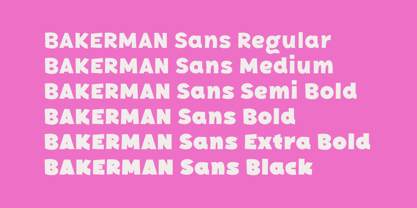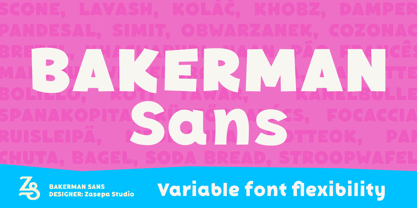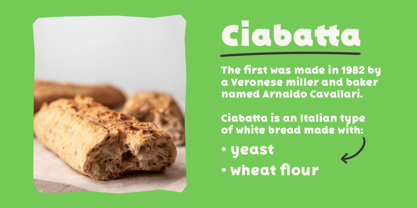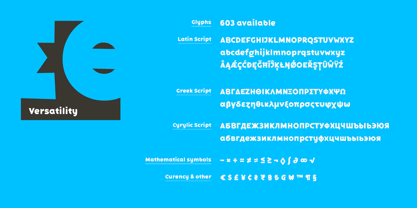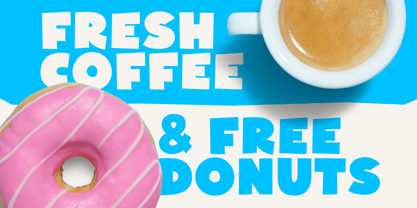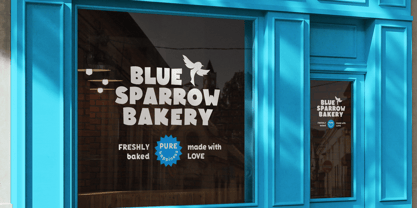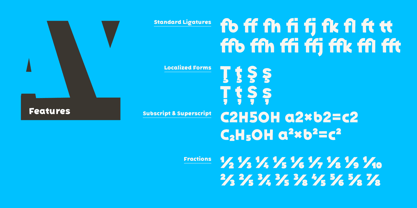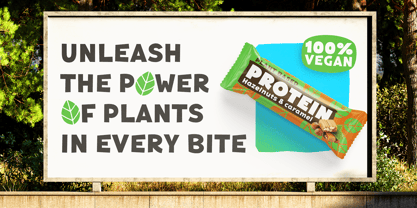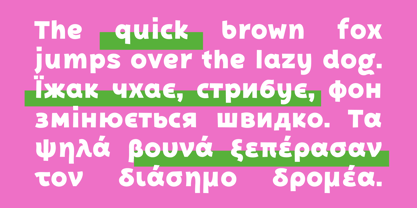
Bakerman Sans
by Zasepa Studio
The Bakerman Sans Font Family was designed by Hubert Zasepa and published by Zasepa Studio. Bakerman Sans contains 7 styles and family package options. More about this family
Bakerman Sans is a bold, heavy sans-serif with a hand-drawn, marker-like style. Its organic, flowing lines and chunky strokes create a warm, friendly, and expressive voice. Designed in multiple widths, it balances strength with a relaxed rhythm, making it perfect for branding, logos, headlines, posters, and packaging. Every glyph carries the energy of spontaneous hand lettering, giving your projects a distinctive, handcrafted character. Bakerman Sans is ideal wherever bold, approachable typography is needed.
Designers: Hubert Zasepa
Foundry: Zasepa Studio
Zasępa Studio is an independent type design studio run by Hubert Zasępa. The studio develops original typefaces with extended language support, including Latin, Greek and Cyrillic. Each font is carefully designed with attention to detail and a focus on clarity, rhythm and distinctive character. At Zasępa Studio, typefaces are treated almost like personalities — every design has its own voice and visual identity.